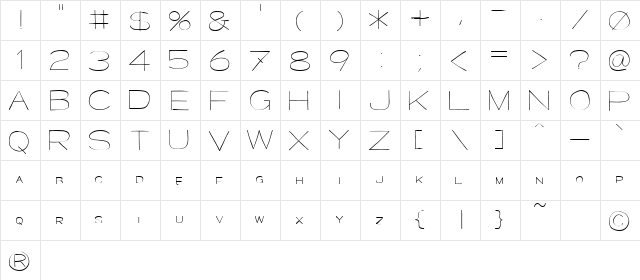
Major Kong Regular
Major Kong takes a measured approach to typography — its balanced proportions and neutral character make it a reliable workhorse for both digital and print work.